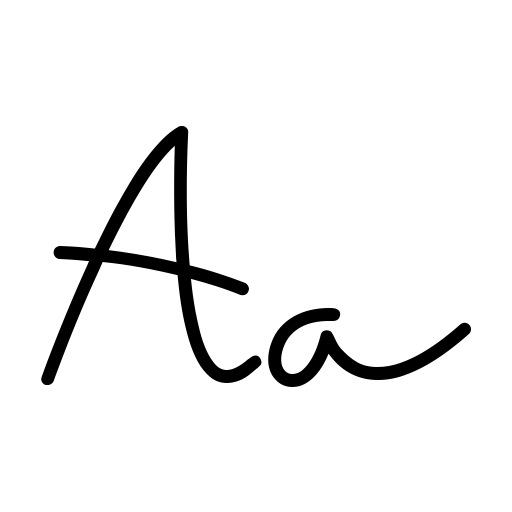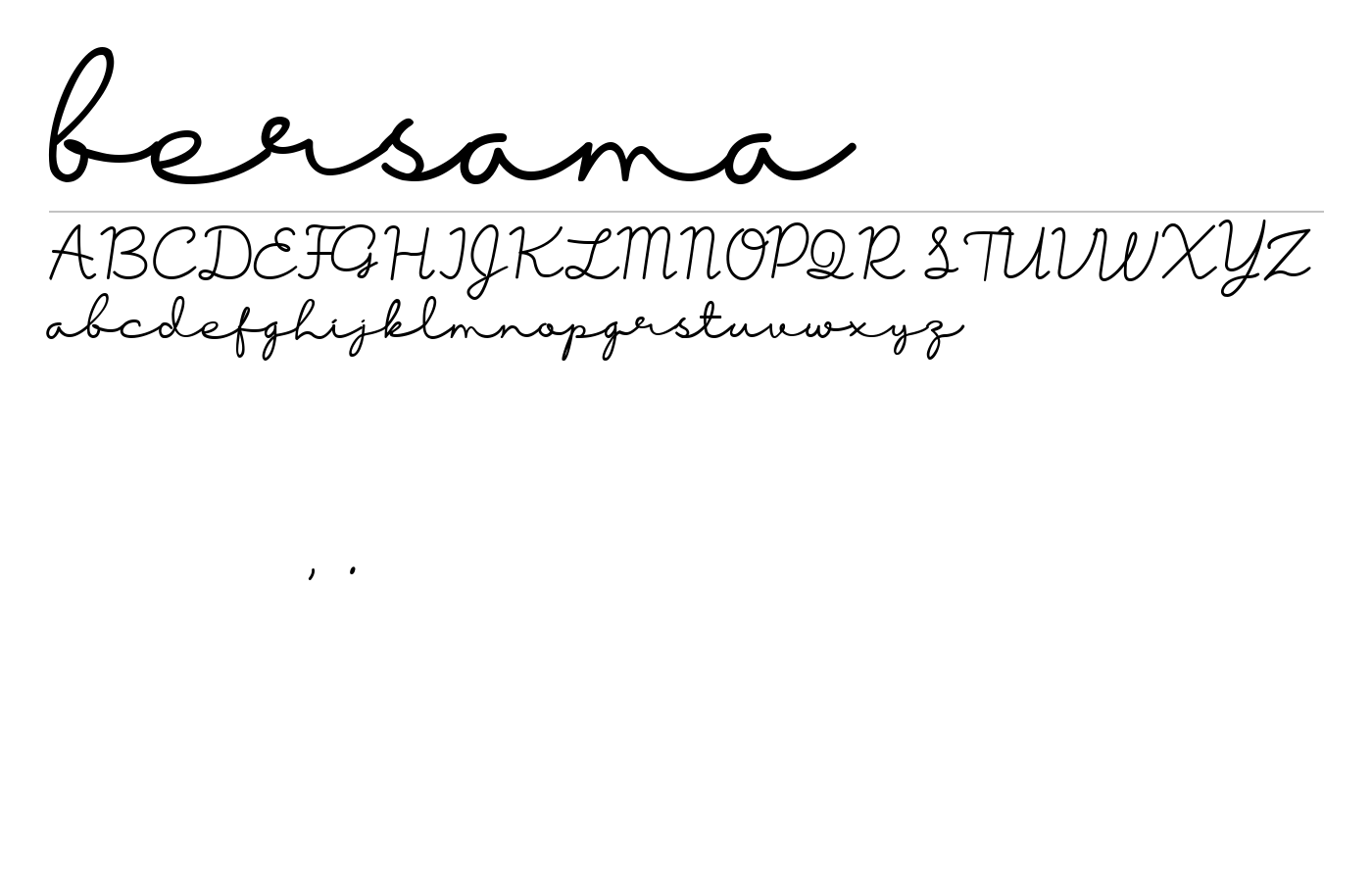
Bersama is a delicate, handwritten script font characterized by its elegant, flowing lines and light weight. It offers a friendly yet refined look with its smooth curves and slightly whimsical letterforms, making it perfect for personal branding, invitations, and creative projects that seek a touch of charm and sophistication. This font works well in contexts where a natural, approachable, and stylish feeling is desired.
bersama Font